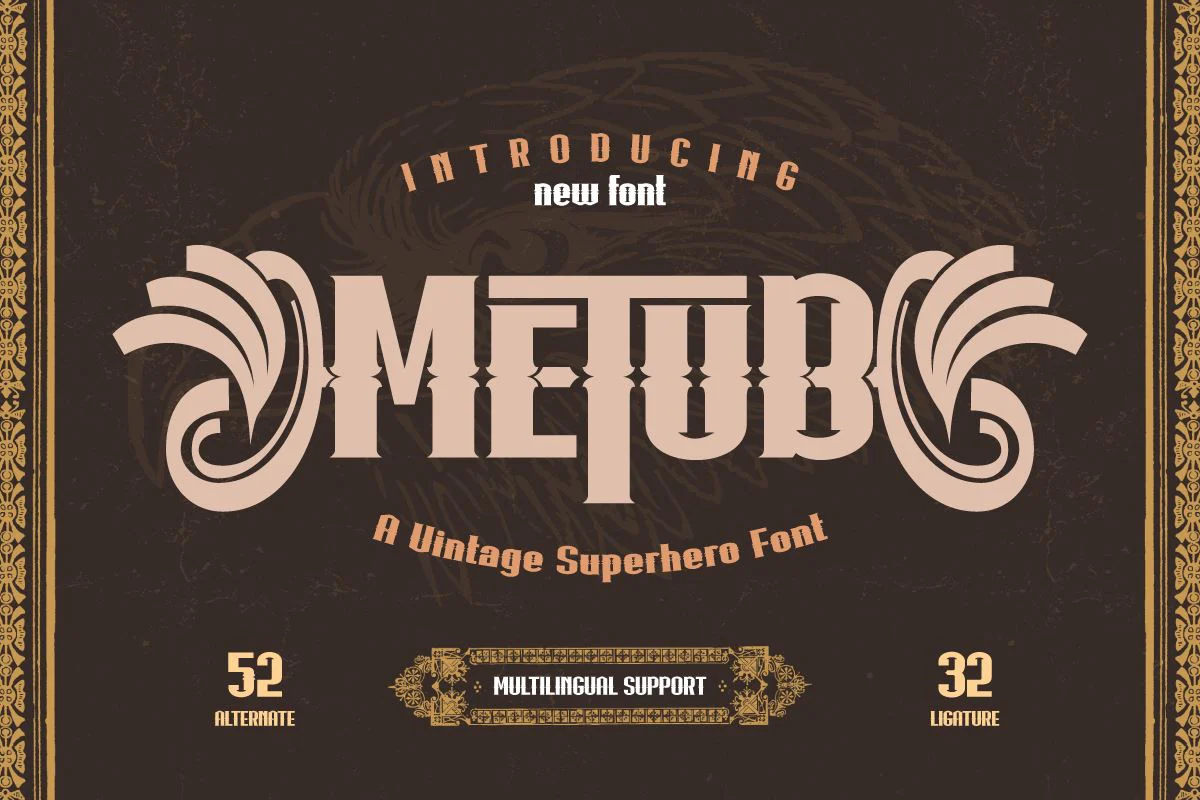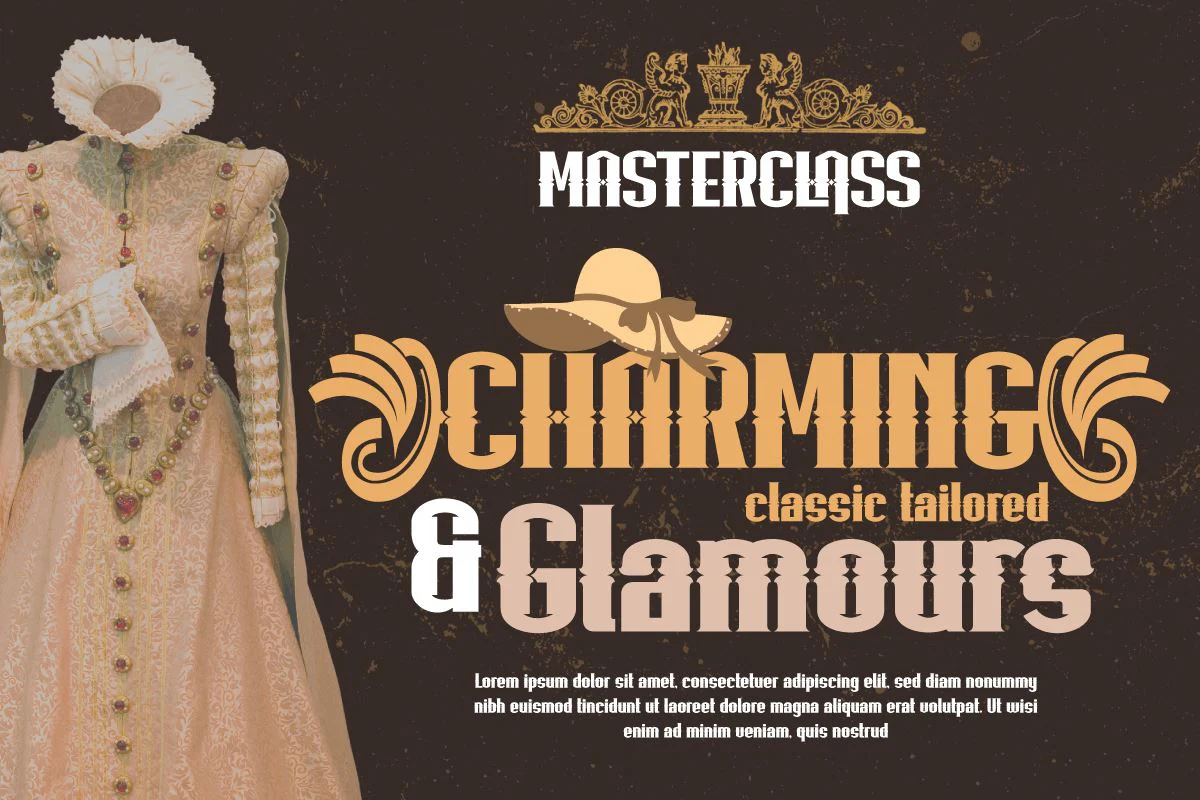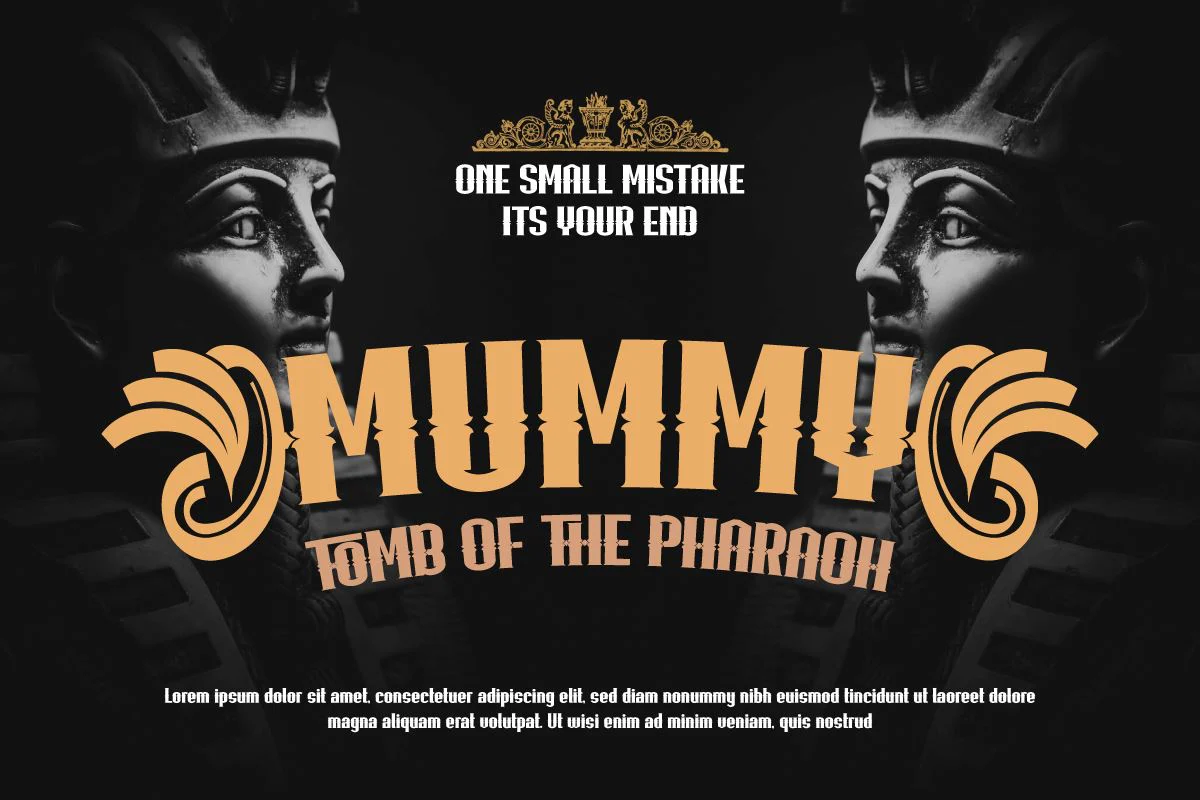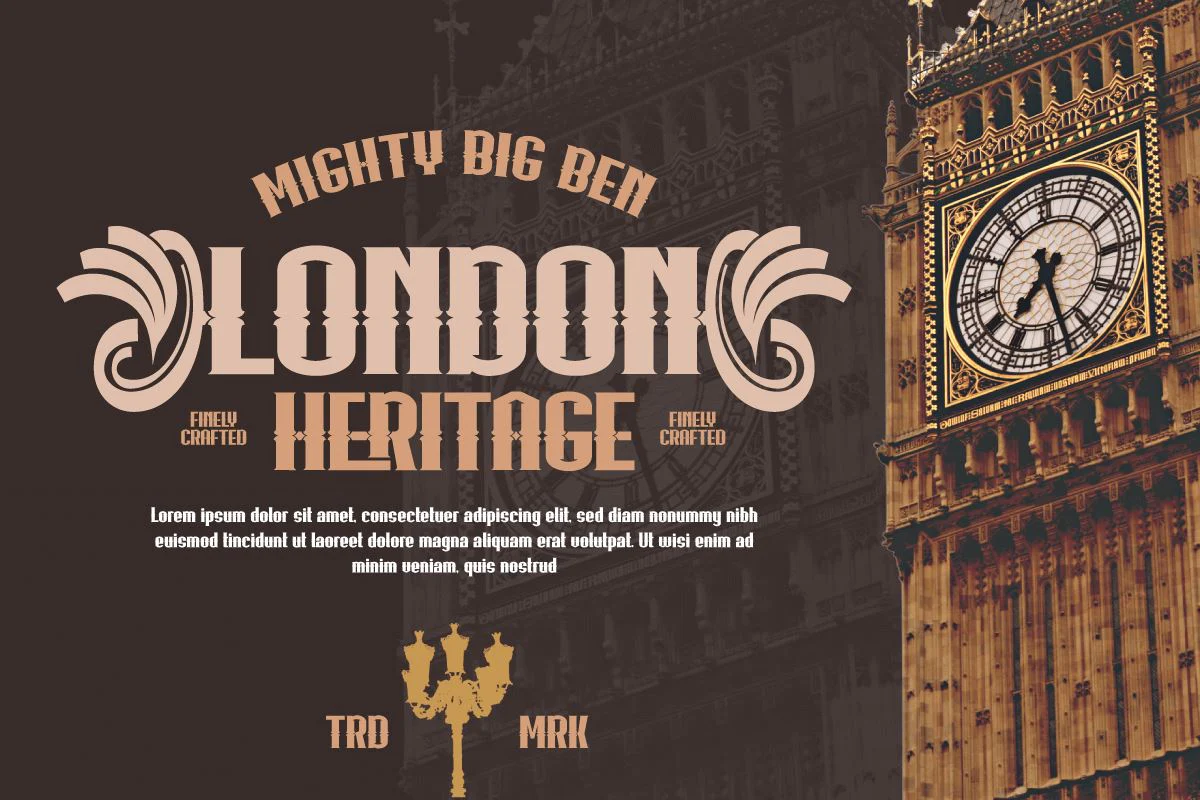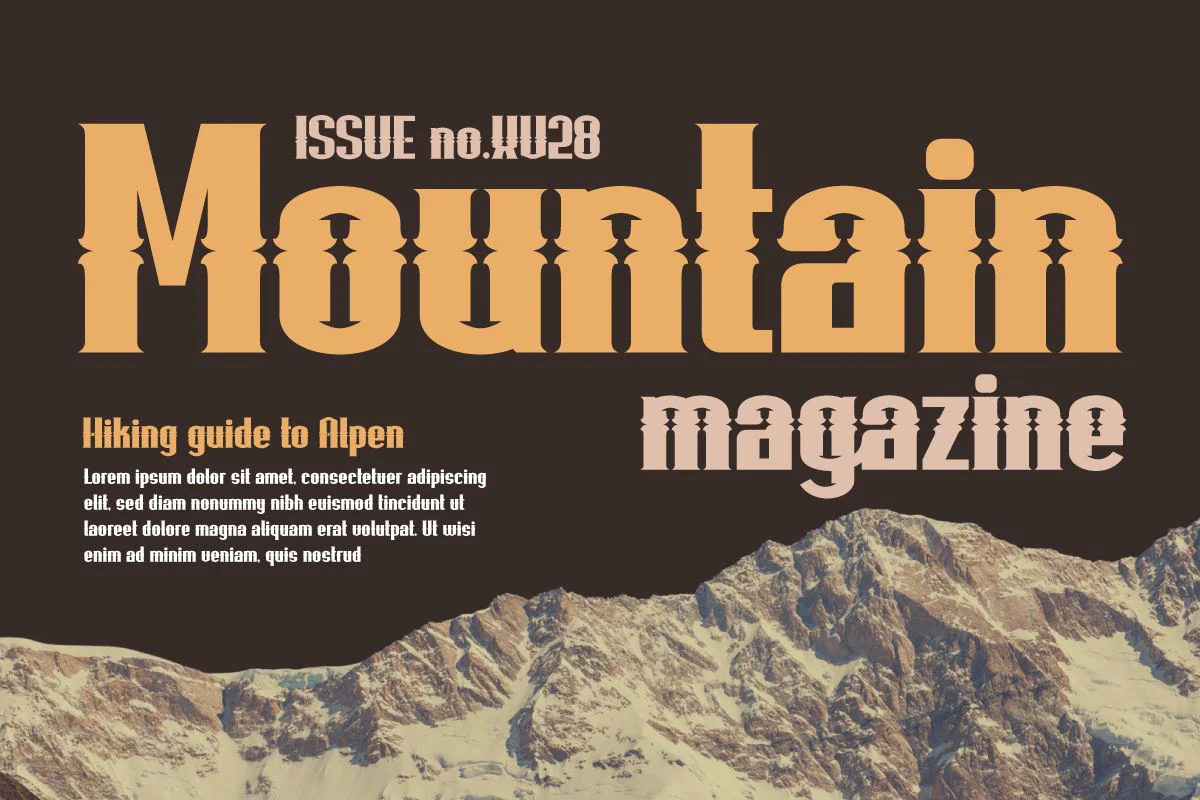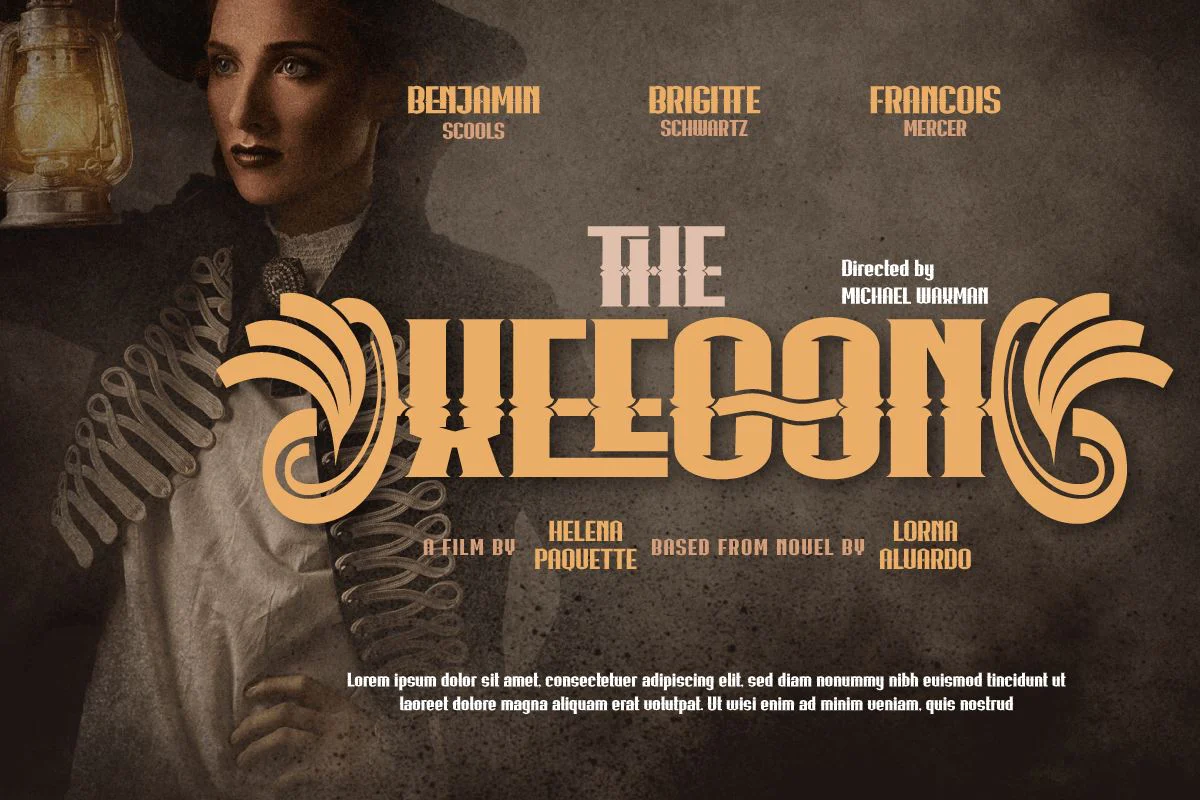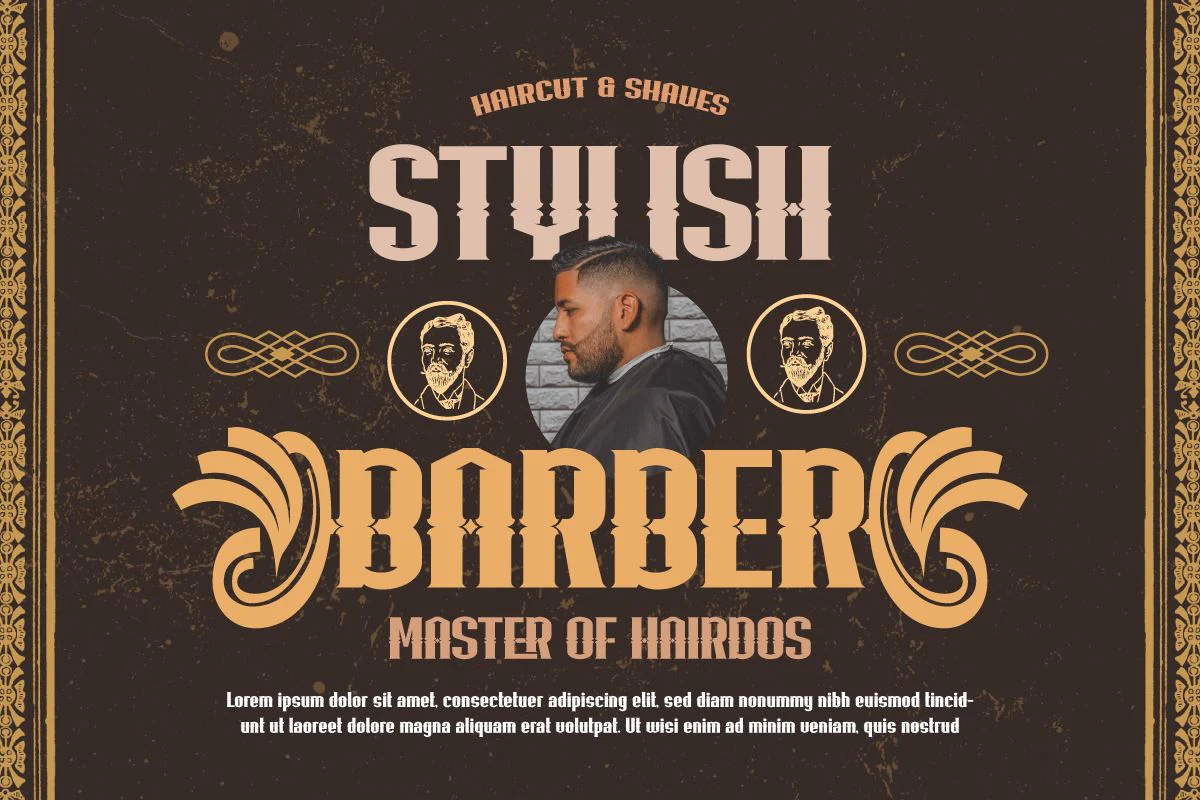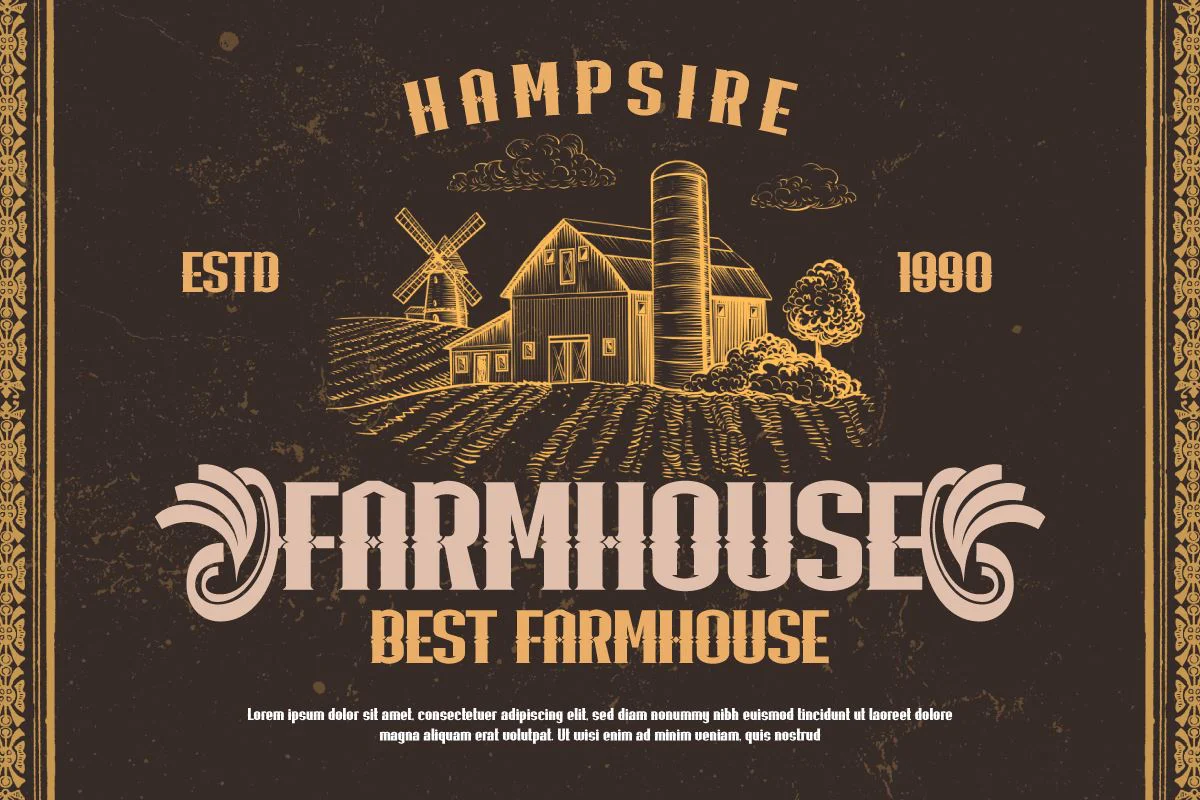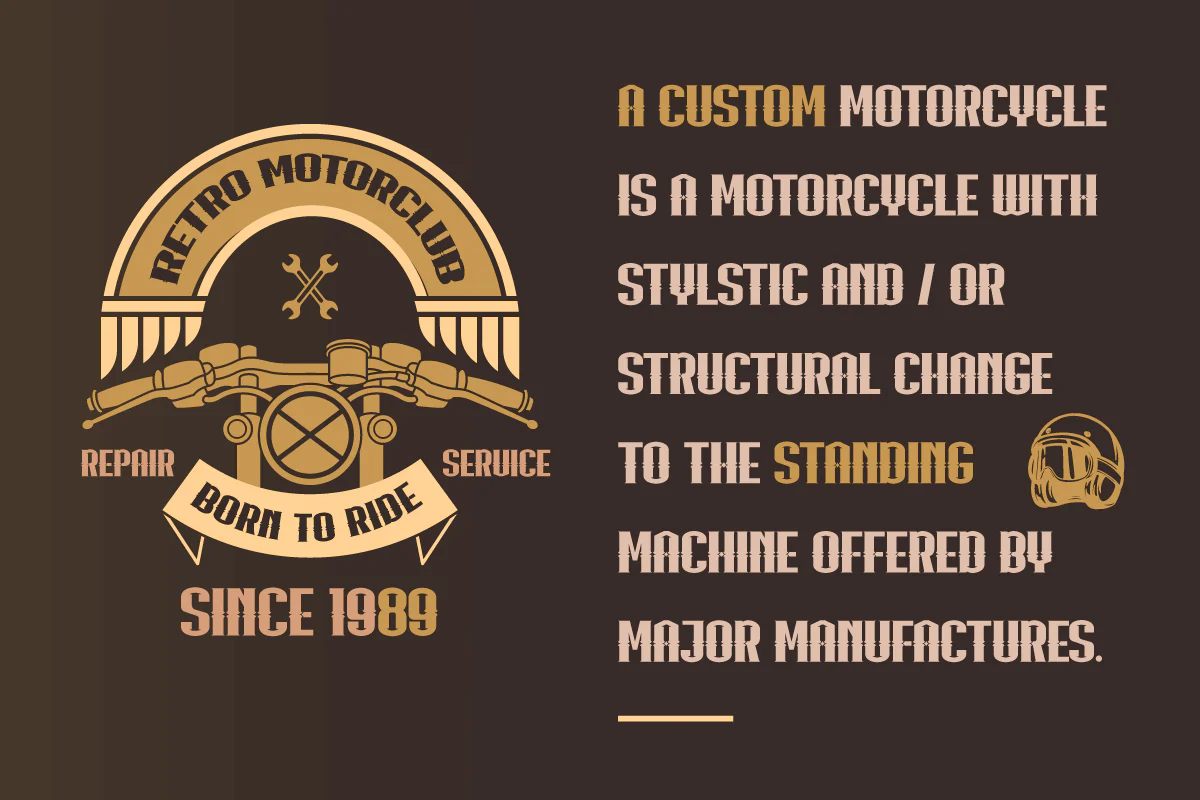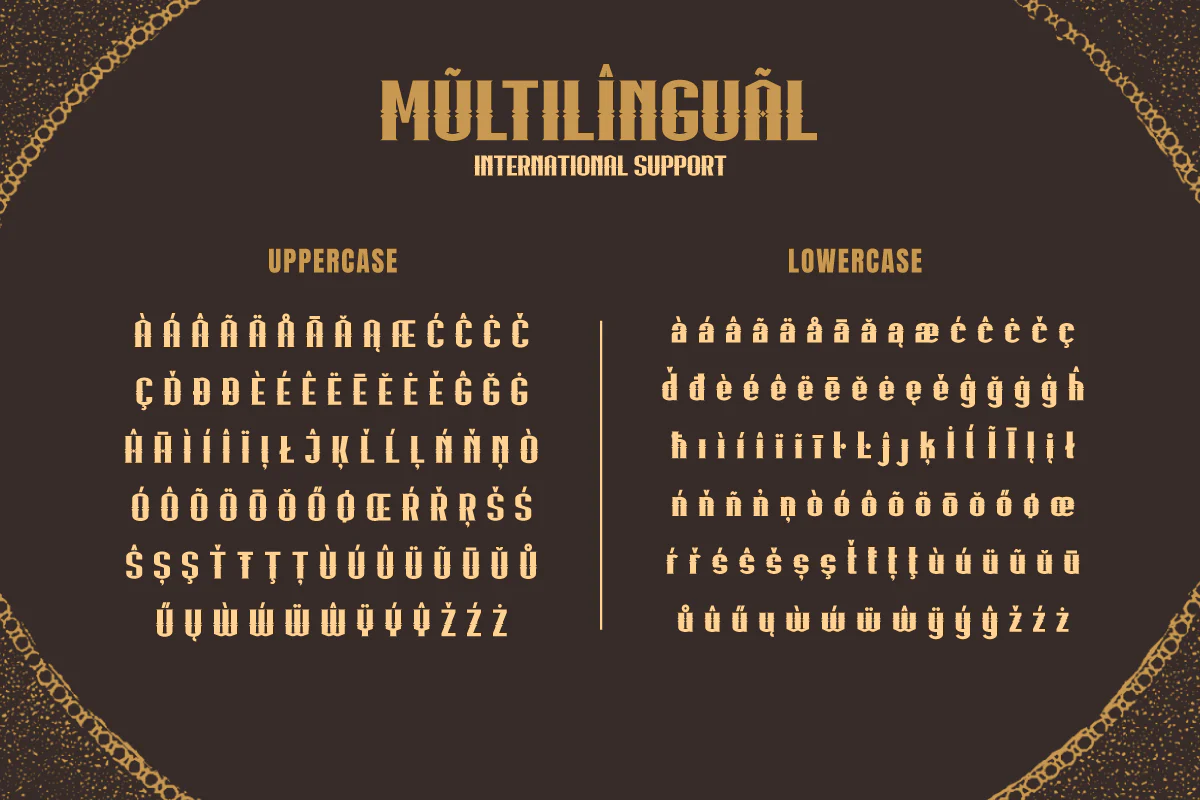
Metub – Display Hero Font
Introducing Metub, the superhero display font with a unique and powerful serif style that’s sure to make your designs stand out. Each letter is meticulously crafted to convey strength and individuality, making this font the perfect choice for bold and impactful projects. With 52 stylish alternate characters and 32 beautifully designed ligatures, Metub offers endless design possibilities that are sure to elevate your work to new heights.
Whether you’re designing posters, logos, or branding materials, Metub is the ideal font for any project that demands a strong and unique aesthetic. And with multilingual support, this font is perfect for projects with a global reach. Give your designs a powerful edge with Metub today.
Introducing Metub, the superhero display font with a unique and powerful serif style that’s sure to make your designs stand out. Each letter is meticulously crafted to convey strength and individuality, making this font the perfect choice for bold and impactful projects. With 52 stylish alternate characters and 32 beautifully designed ligatures, Metub offers endless design possibilities that are sure to elevate your work to new heights.
Whether you’re designing posters, logos, or branding materials, Metub is the ideal font for any project that demands a strong and unique aesthetic. And with multilingual support, this font is perfect for projects with a global reach. Give your designs a powerful edge with Metub today.